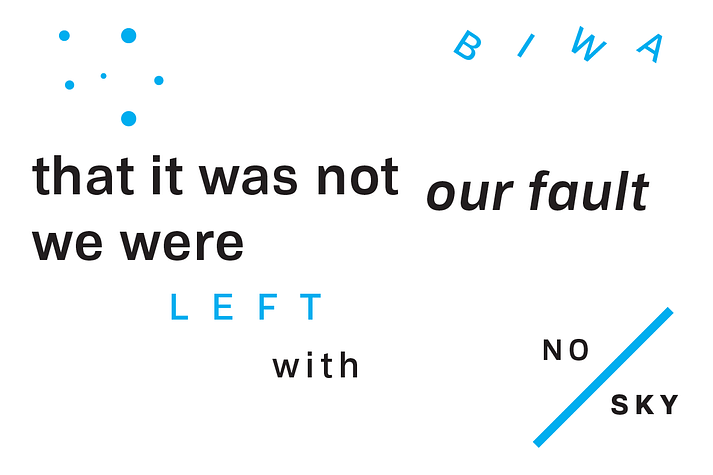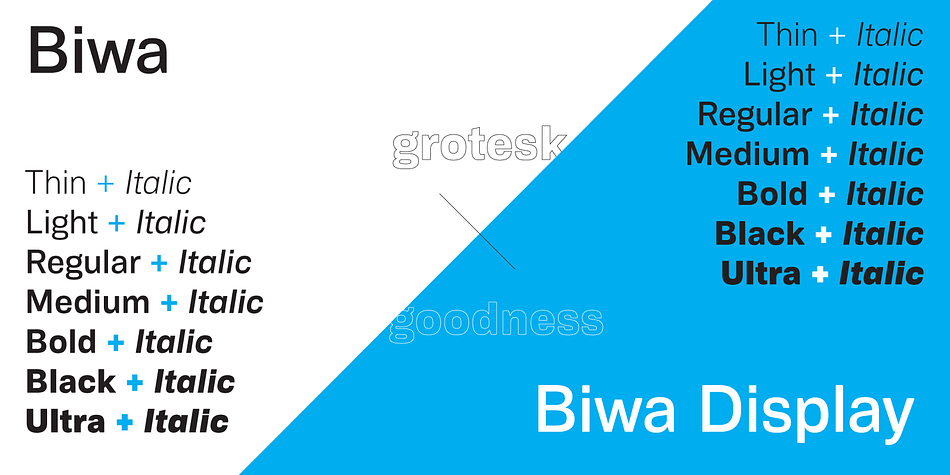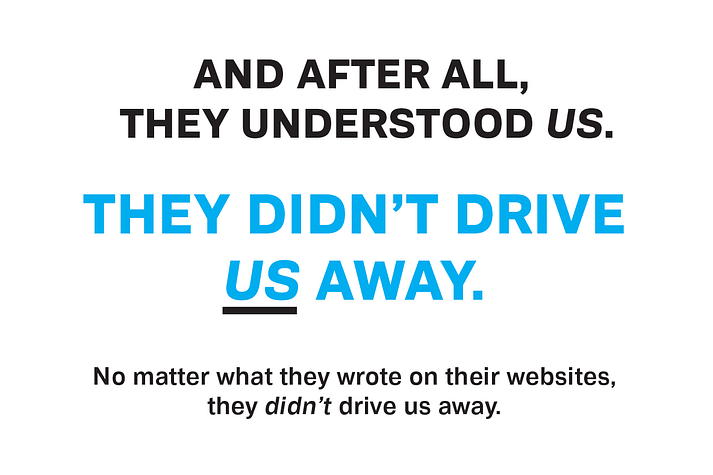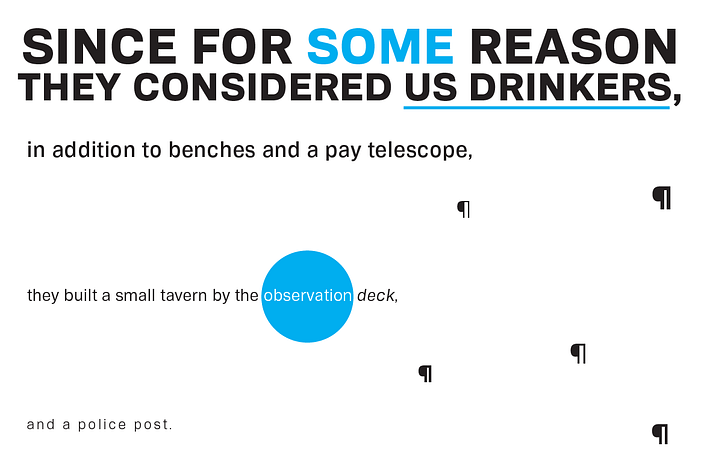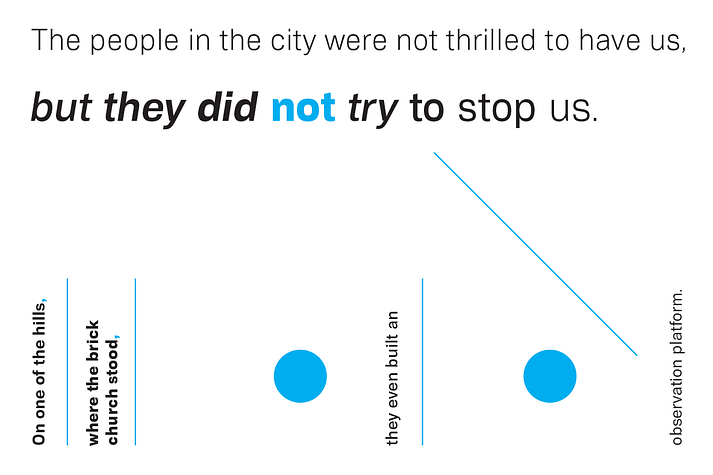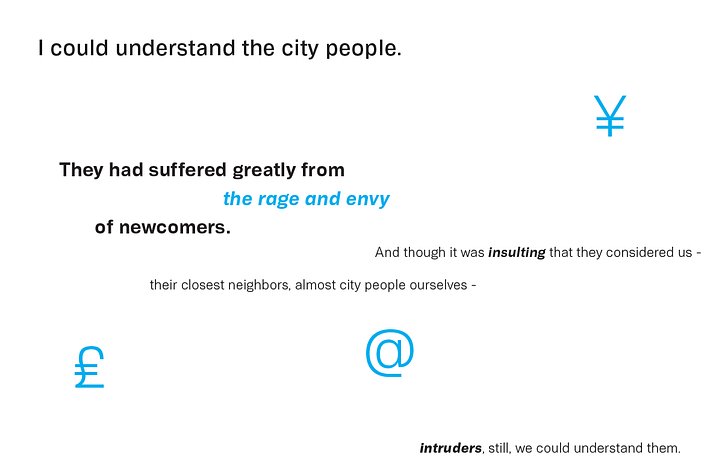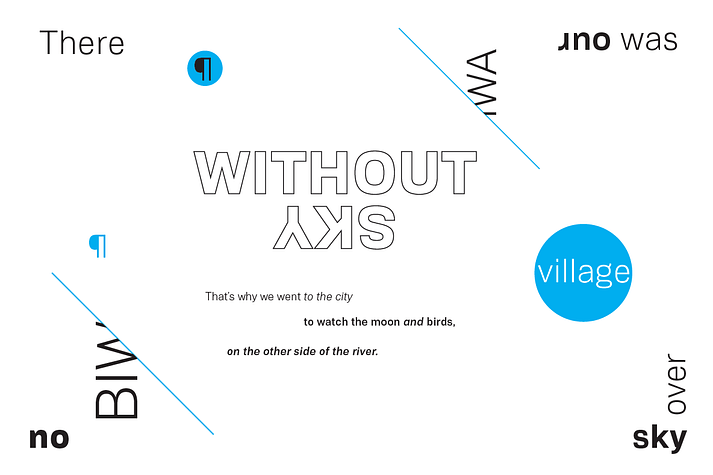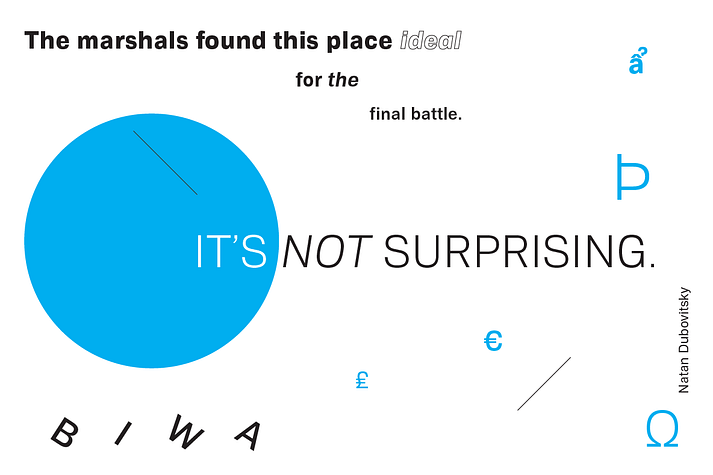
Designed by Ian Lynam and James Todd, Biwa is a sans serif font family. This typeface has fourteen styles and was published by Wordshape.
Biwa is a new straight-sided family of formally nuanced grotesk typefaces. Biwa’s lighter weights feel subdued, cool in tone, and neutral, while the heavier weights are more robust and full of personality. Developed over the past few years by Ian Lynam and James Todd, the 14-member Biwa family and the accompanying 14-member Biwa Display family are paeans to the immediate moment when phototype arrived on the global scene — partially smooth and partially machined. Biwa and Biwa Display are neutral in tone, have enlarged x-heights, and look amazing on-screen and in print.
Each weight is designed to be highly readable in print and on-screen. The italic variations are true italics, having a single-storied italic a and have been designed for smooth, fluid reading and text-setting. Lovingly spaced and kerned, the Biwa family works equally well for text typesetting and for display design work.
Languages supported include Western European, Central, and South European.